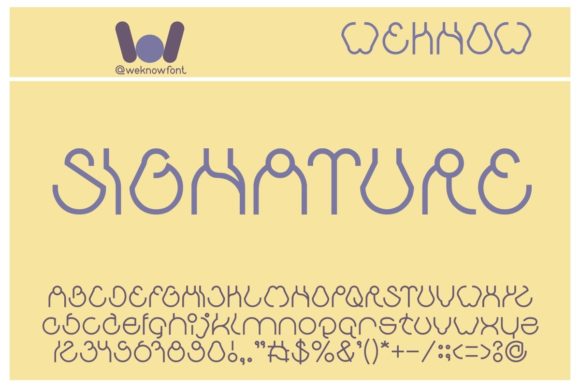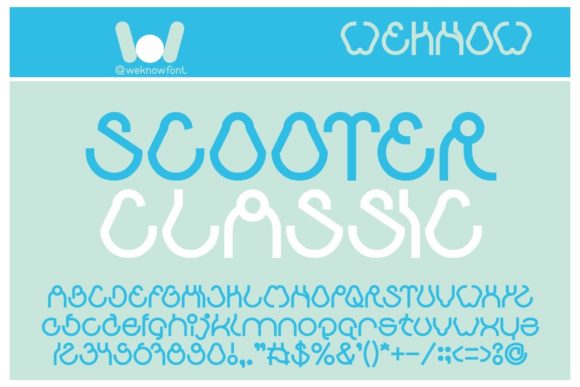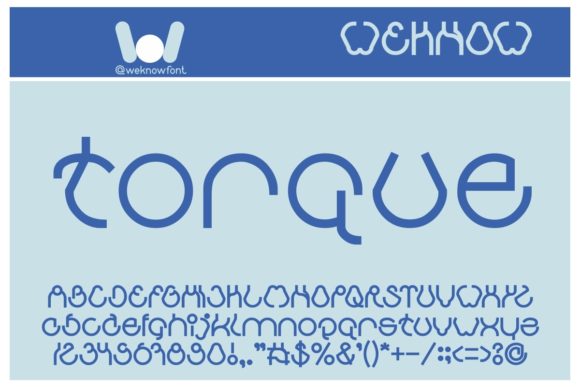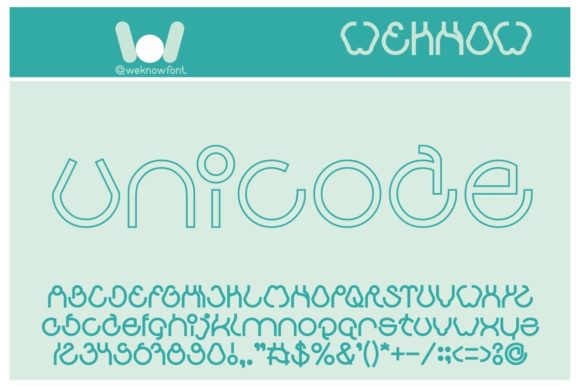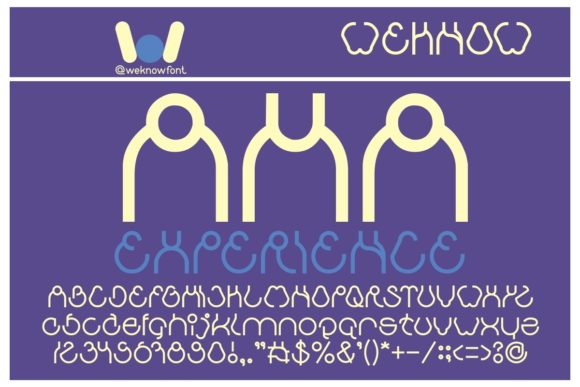
Aha Experience Font: Elevate Your Designs with a Cool, Techno Twist
Are you tired of using the same old fonts in your designs? Do you want to add a touch of uniqueness and personality to your creations? Look no further than the Aha Experience Font! This cool, techno, and interesting looking display font is sure to make each of your designs stand out from the crowd.
What is Aha Experience Font?
Aha Experience Font is a display font that boasts a distinctive and unconventional design. Its unusual style is perfect for designers and crafters who want to add a bit of edge to their work. Whether you’re creating a logo, poster, or social media graphic, this font is sure to grab attention and leave a lasting impression.
Key Features of Aha Experience Font
- Unique and Unconventional Design: Aha Experience Font features a one-of-a-kind design that’s sure to set your designs apart from the rest.
- Cool and Techno Look: This font has a sleek, techno look that’s perfect for designs that require a modern and edgy feel.
- Display Font: Aha Experience Font is specifically designed as a display font, making it perfect for headlines, titles, and other attention-grabbing elements.
- Easily Readable: Despite its unconventional design, Aha Experience Font is still easily readable, making it a great choice for designs that require a bit of flair.
Who Can Benefit from Aha Experience Font?
Aha Experience Font is perfect for a variety of designers and crafters, including:
- Graphic Designers: Add a touch of uniqueness to your designs and make your clients’ brands stand out.
- Social Media Influencers: Elevate your social media graphics and make your content more engaging.
- Crafters: Add a professional touch to your handmade projects and make them more visually appealing.
- Marketers: Create eye-catching marketing materials that grab attention and drive results.
How to Use Aha Experience Font
Using Aha Experience Font is easy! Here are a few tips to get you started:
- Pair it with a Simple Font: Balance out the uniqueness of Aha Experience Font by pairing it with a simple font for body text.
- Experiment with Colors: Try out different colors and gradients to really make your design pop.
- Use it for Headlines: Aha Experience Font is perfect for headlines and titles, so use it to grab attention and draw the eye.
If you’re looking for a font that will add a touch of cool, techno flair to your designs, look no further than Aha Experience Font. Its unique and unconventional design makes it perfect for designers and crafters who want to stand out from the crowd. With its easily readable design and versatility, Aha Experience Font is sure to become a go-to in your design arsenal.